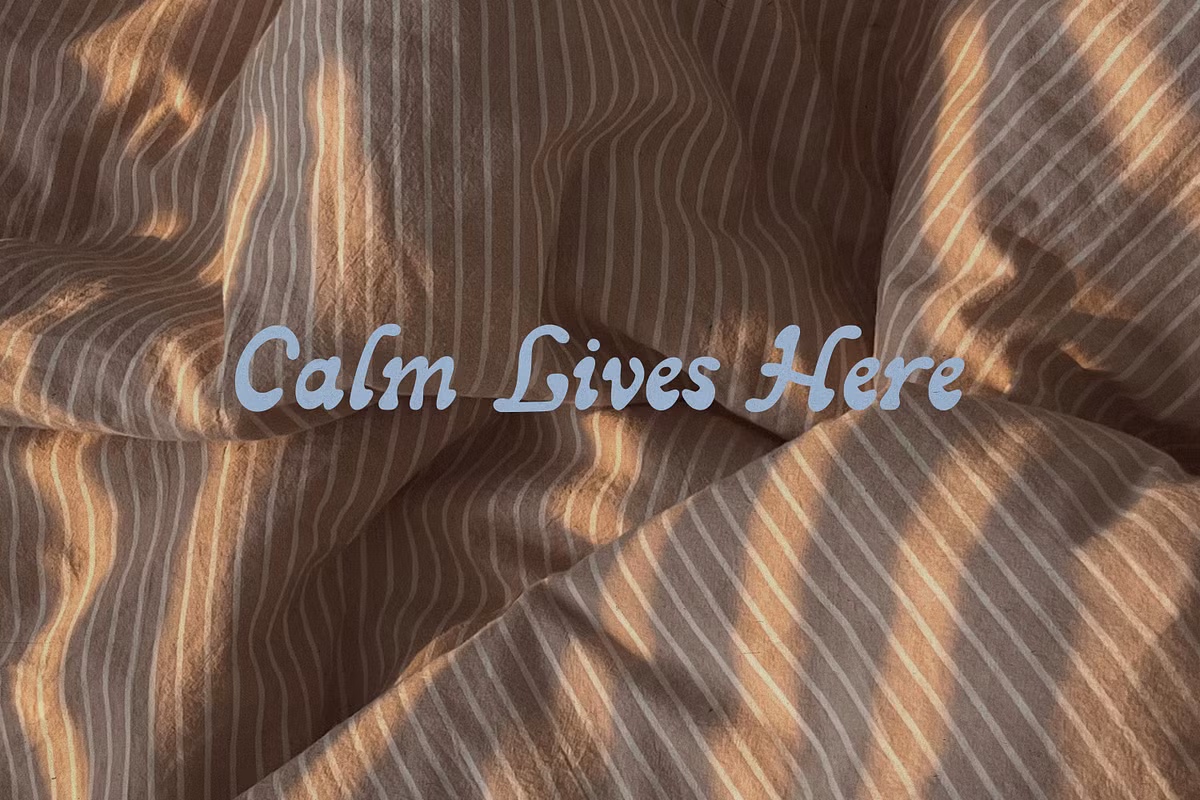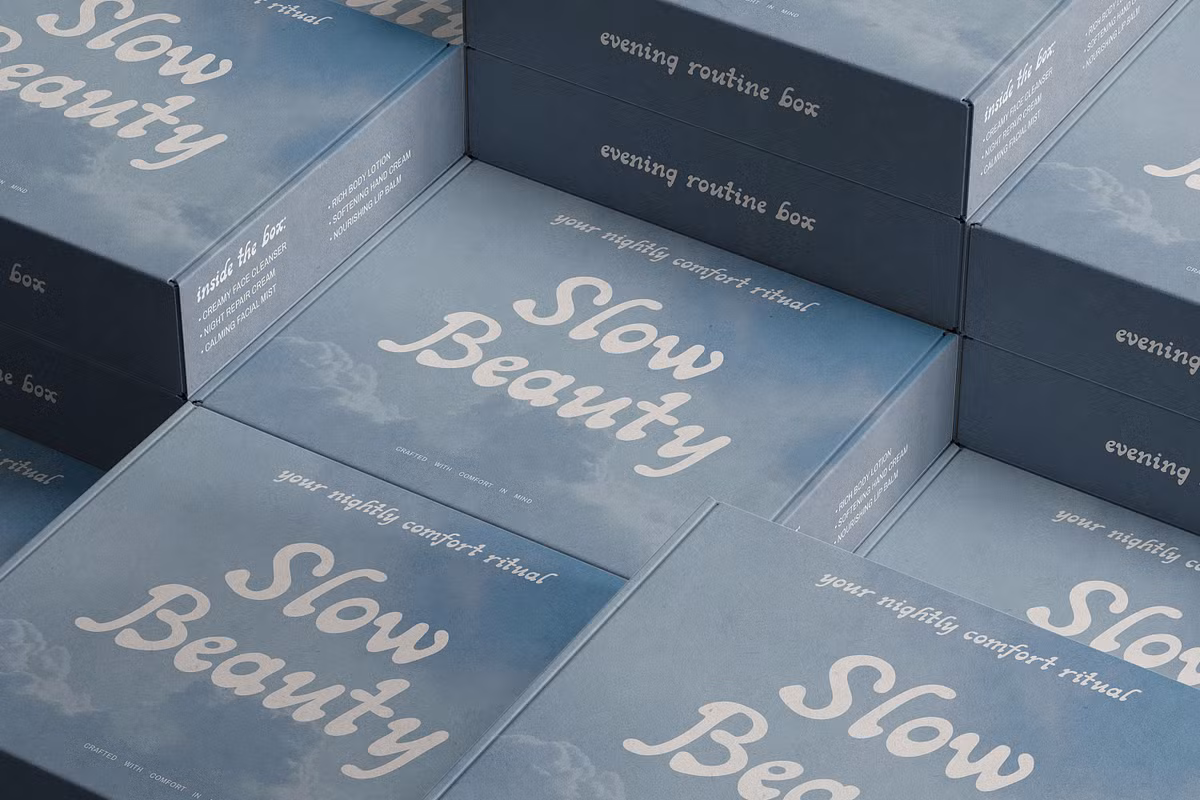
Slumber Playful Wavy Friendly Font: Cozy Typeface for Creative Designs
Introducing Slumber, a display font that feels cozy and relaxed. I find Slumber friendly. I use Slumber to add a feel to any project. Slumber shows the curves and a few imperfect shapes. I choose Slumber when I want a bit of charm and comfort in the design.
Design Style of Slumber Font
The Slumber font shows a style. The Slumber font has edges and fun shapes. The Slumber font includes an shape that makes the Slumber font feel natural. The Slumber font gives a feeling that works well for life projects. The Slumber font also fits projects that want joy. I like the Slumber font because the Slumber font feels friendly and easy to read.
I have tried the Slumber font. I see the Slumber font work, in design contexts. The Slumber font gives a feel that lifestyle brands often want. The Slumber font helps a message reach the audience. I have used the Slumber font for a bakery design and, for a greeting card. The Slumber font shines in any setting.
Character Sets and Features
I notice that the Slumber font has a character set that includes letters, numbers and special characters. The character set gives me flexibility in my designs. The character set lets me show my brand message without limits. I can use the character set for any project.
The font has elements, like playful ligatures and alternate characters that let you express creativity. You can. Match characters to make designs that catch the eye and stand out from the crowd. The layout of the font invites interaction making the font perfect, for heartfelt communication.
Use Cases for Slumber Font
The Slumber font works in applications. The Slumber font is a choice, for design projects. Here are some specific use cases where the Slumber font can excel:
- Bakery Branding: Use Slumber to make logos, packaging and signs that feel warm and sweet. I find that Bakery Branding, with Slumber matches the feel of a bakery.
- Café Menus: The font has a feel. Café Menus look inviting with this font. Café Menus let customers enjoy a cup of coffee or tea in a setting.
- Social Media Graphics: Slumber lets you make graphics and quotes, for the media platforms. You can use Slumber to create graphics and quotes. Then your posts will catch the eye of the audience. Slumber helps your posts stand out with a tone.
- Greeting Cards: Slumber adds a feel, to greeting cards. I like using Slumber on greeting cards for birthdays for holidays or just because. Greeting cards become more personal and inviting with Slumber.
- Childrens Products: I like Slumber because Slumber has a design. I use Slumber, for childrens books, toys and educational materials. I see Slumber capture the imagination of audiences.
Pairing Suggestions for Slumber Font
When considering pairings for Slumber, it’s essential to look for fonts that complement its playful and friendly nature. Mixing with a simple sans-serif font can create a balance that enhances readability while maintaining the charm of Slumber.
Overall, Slumber can elevate a variety of designs, making them feel warm and inviting.